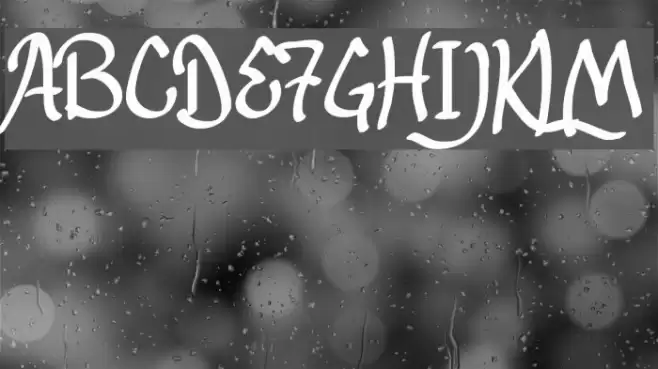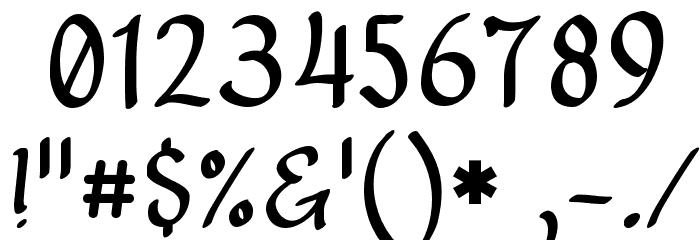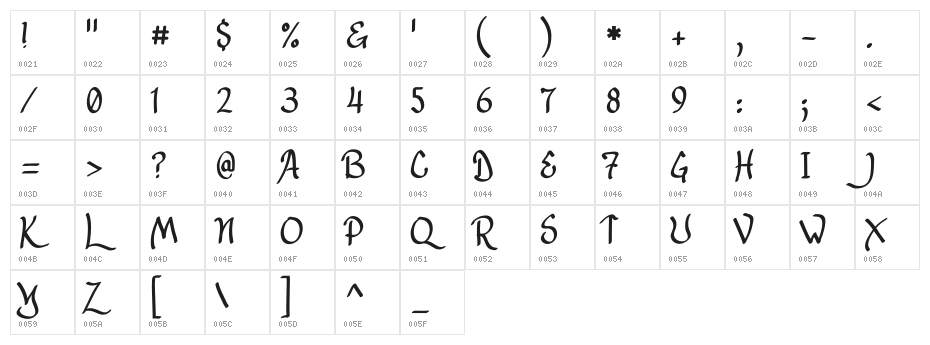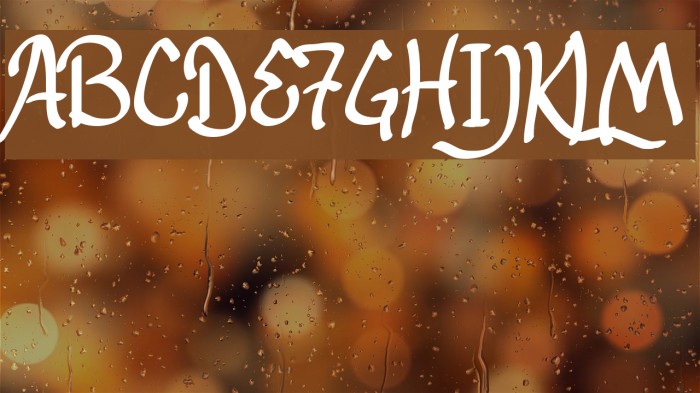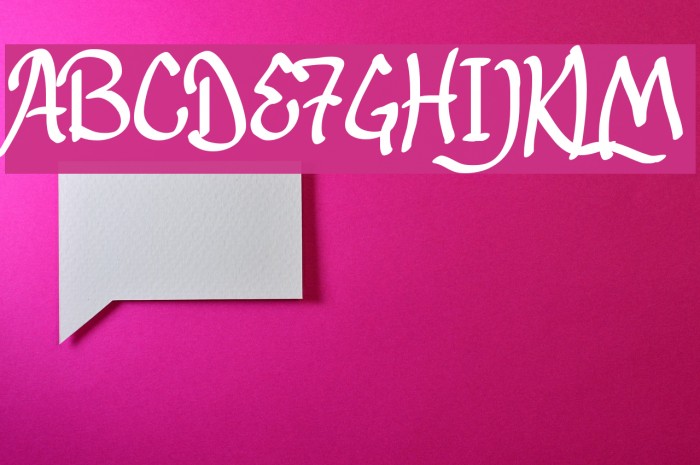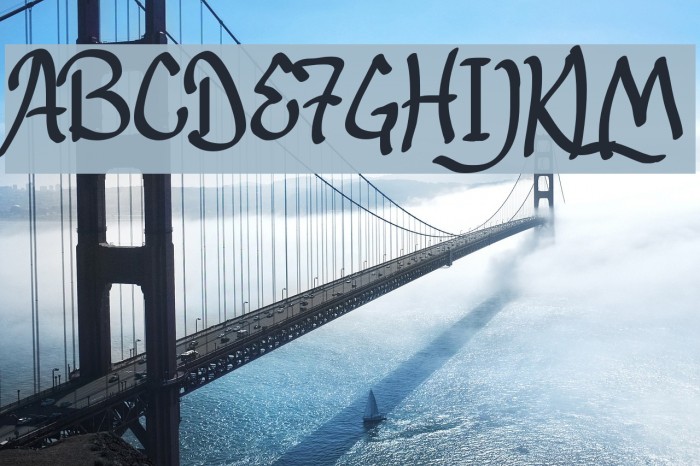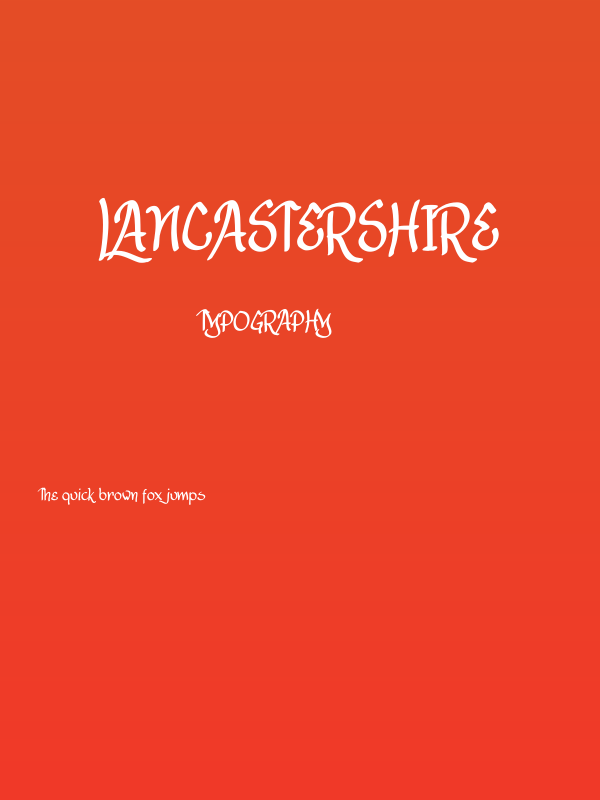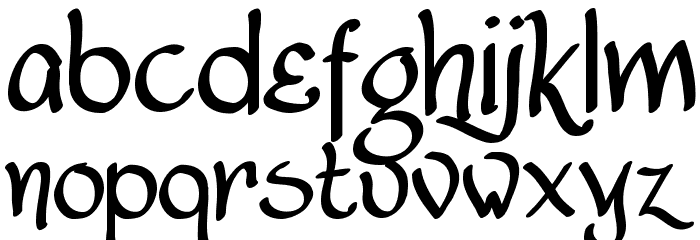
Lancastershire Font
Lancastershire Description
This font features a dynamic and expressive style, characterized by its flowing, cursive script that mimics the fluidity of handwriting. The uppercase letters exhibit a bold and slightly whimsical flair, with exaggerated curves and loops that give each character a unique personality. The lowercase letters maintain a consistent rhythm, with rounded forms and smooth connections that enhance readability. The numerals are distinct and easy to distinguish, while the special characters integrate seamlessly with the overall design. This font's artistic nature makes it suitable for creative projects that require a personal touch.
A dynamic, cursive script font with bold, expressive characters from Handwritten fonts.